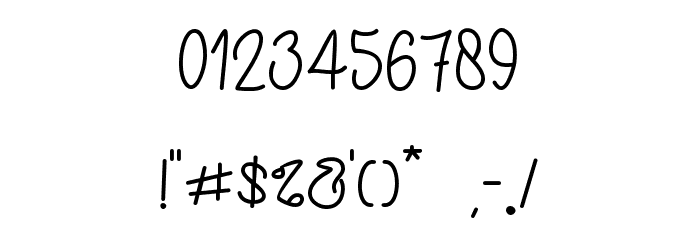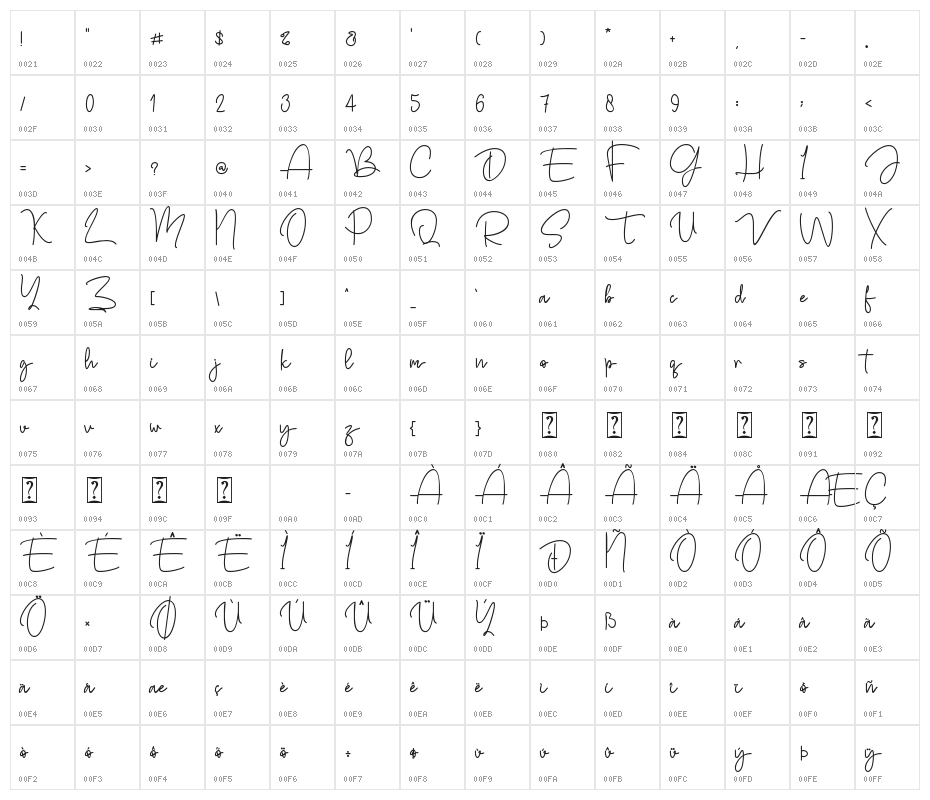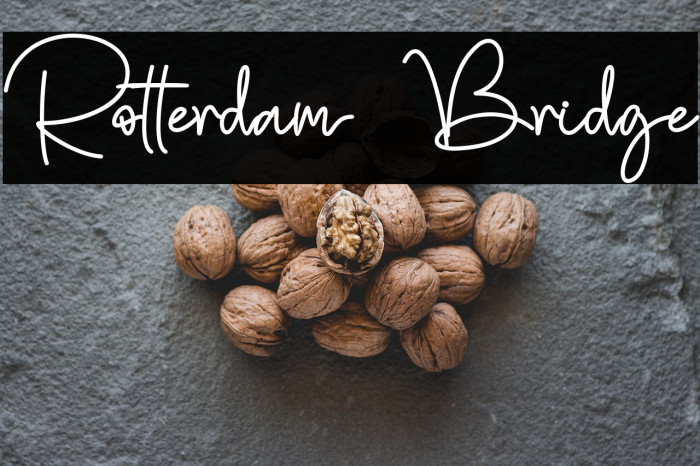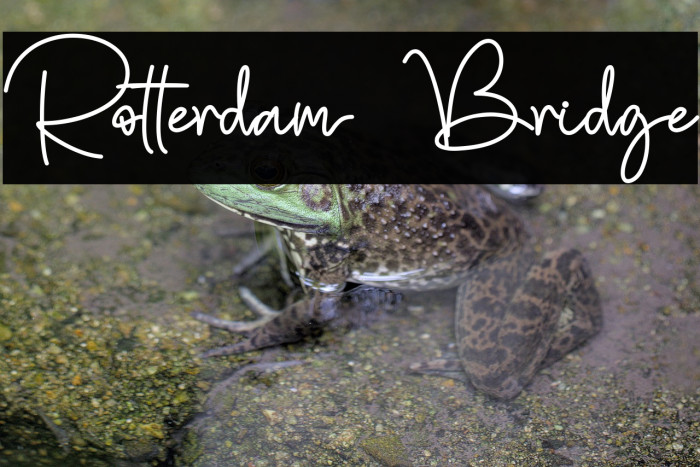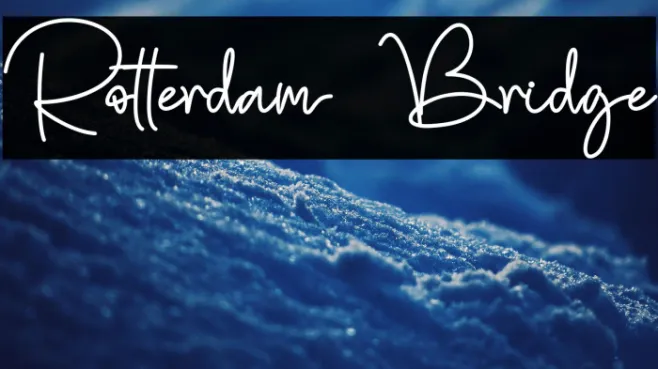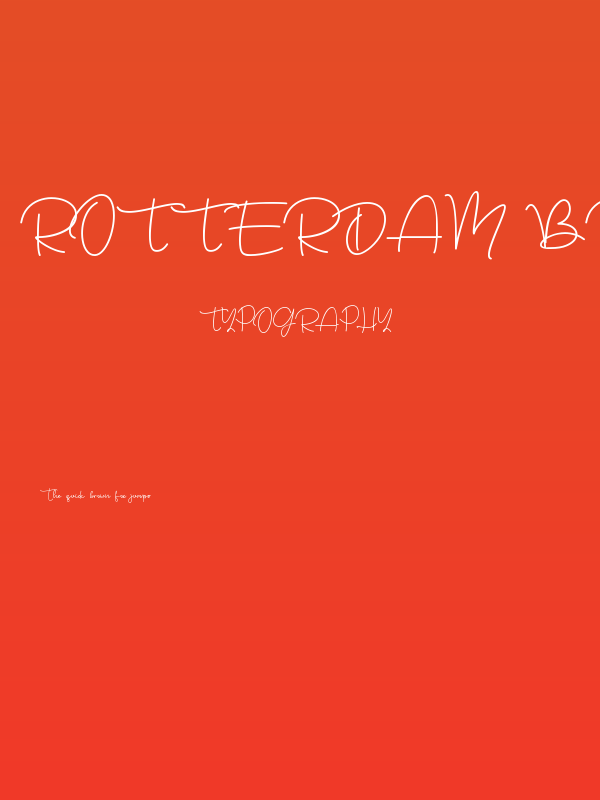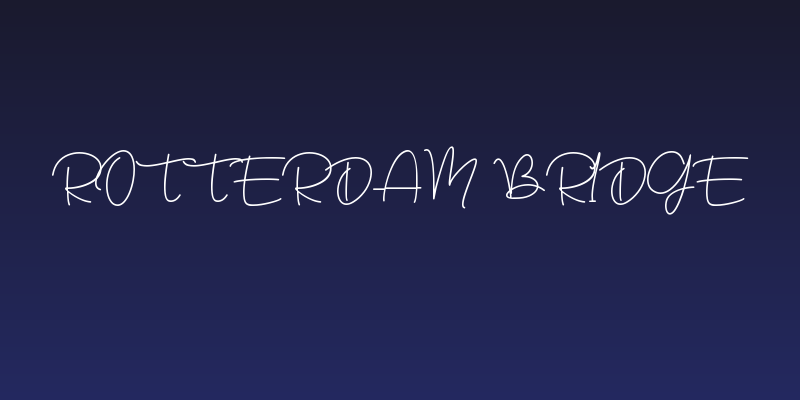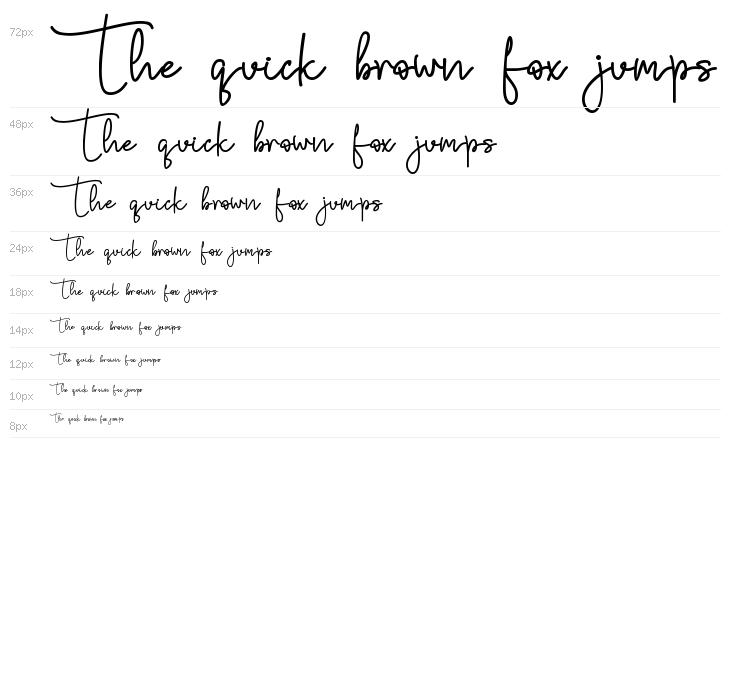
Rotterdam Bridge Font
Rotterdam Bridge Description
This font features a flowing, handwritten style that exudes elegance and sophistication. The uppercase letters are tall and slender, with a slight slant that adds a dynamic feel. The lowercase letters are more compact, maintaining a consistent baseline with gentle curves and loops that enhance its handwritten charm. The numerals are clear and legible, matching the overall aesthetic with their smooth lines. Special characters are thoughtfully designed to complement the alphabet, ensuring versatility in various contexts. The font's overall appearance is both modern and timeless, making it suitable for a wide range of applications.